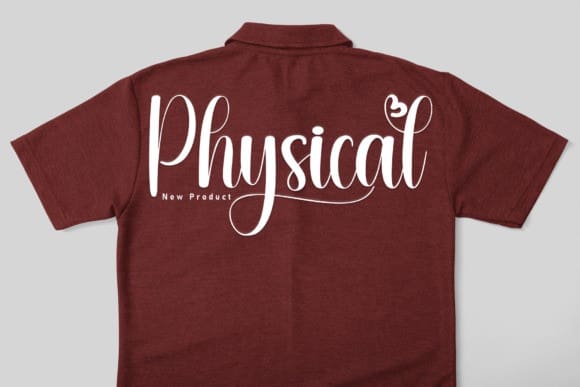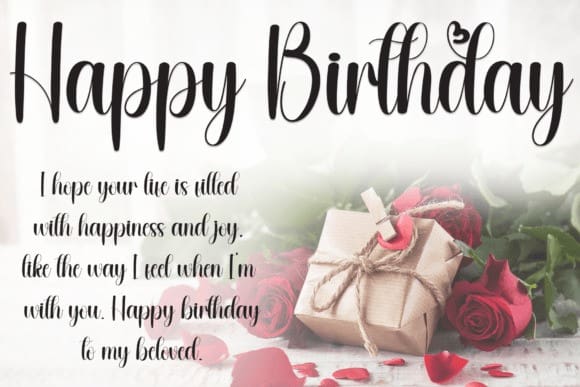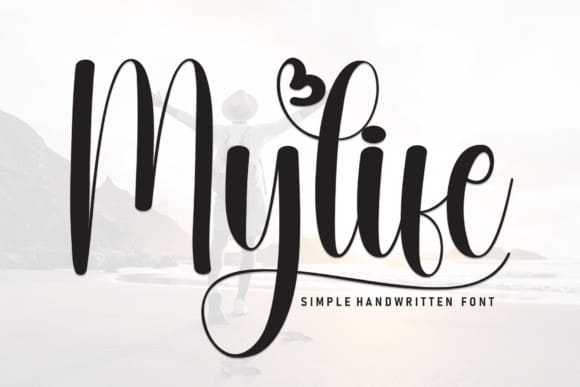
Mylife Script Font
Mylife Script Font is a modern and versatile typeface that embodies the essence of personal expression. With its clean lines and balanced letterforms, this font reflects individuality and contemporary style. Ideal for lifestyle branding, creative projects, and inspirational designs, it adds a touch of uniqueness and authenticity to any composition.